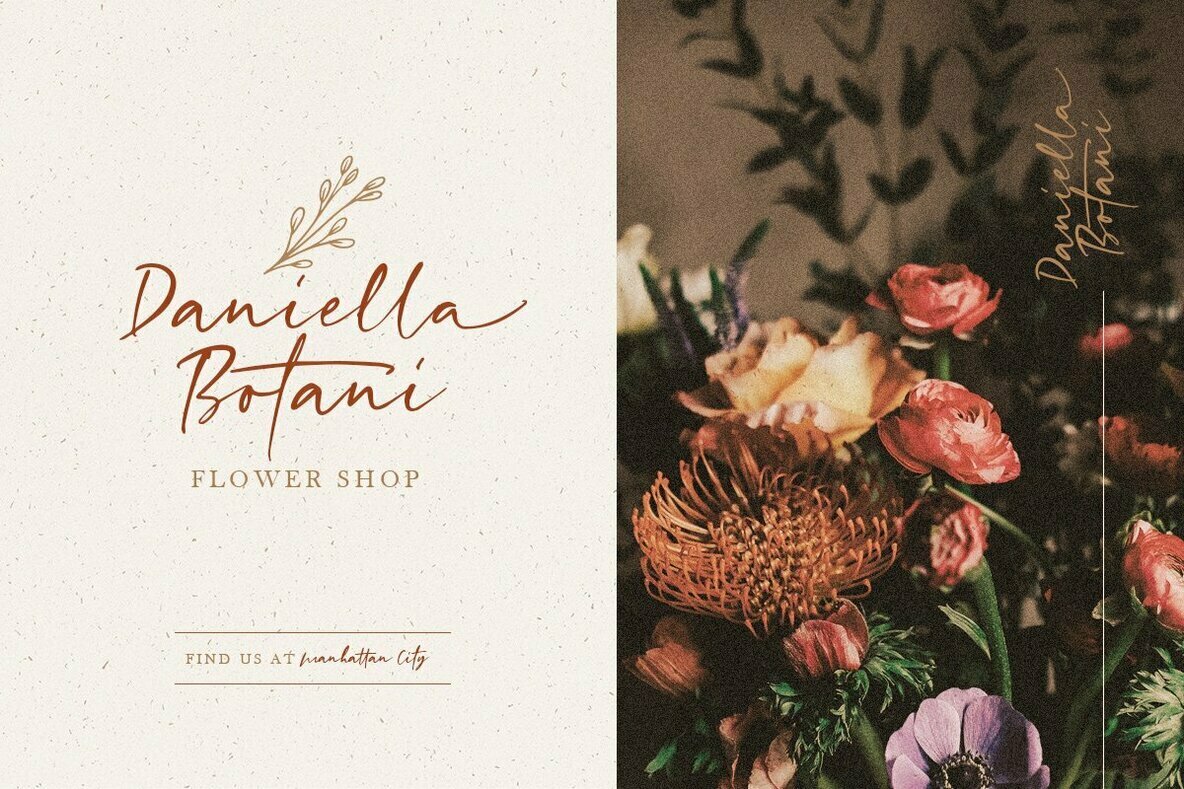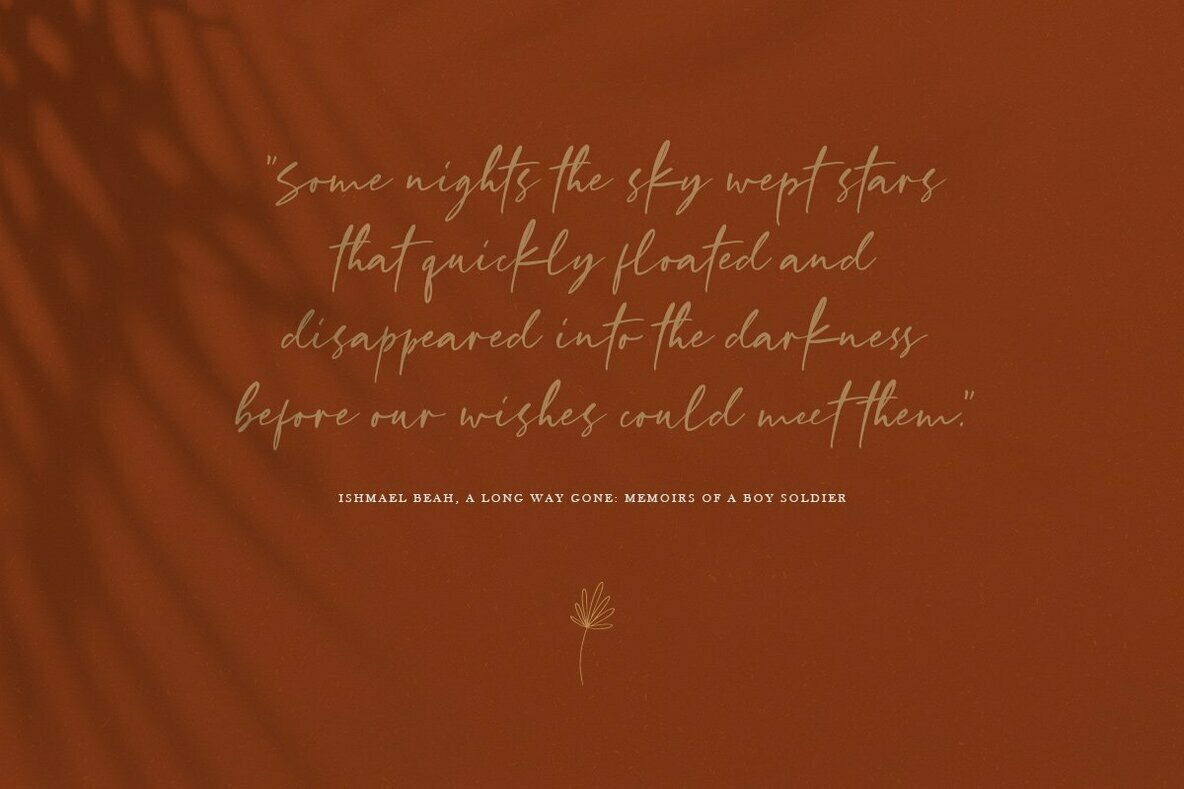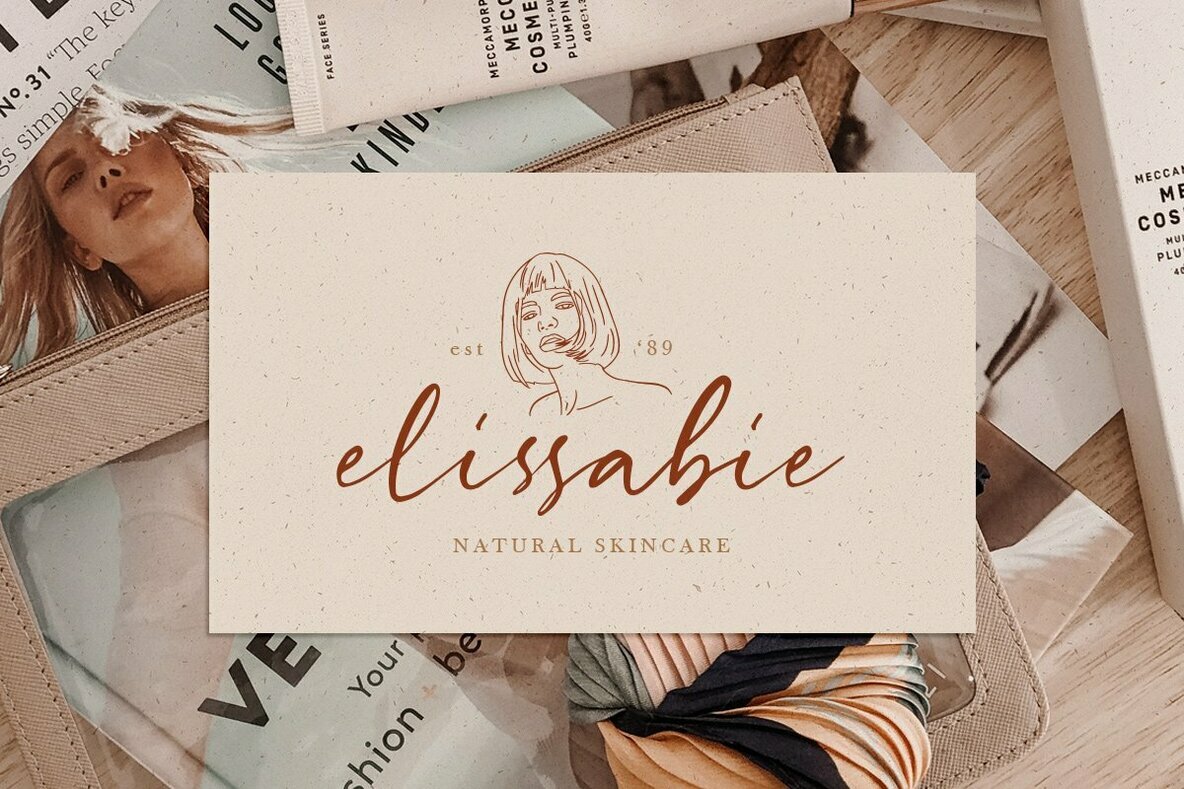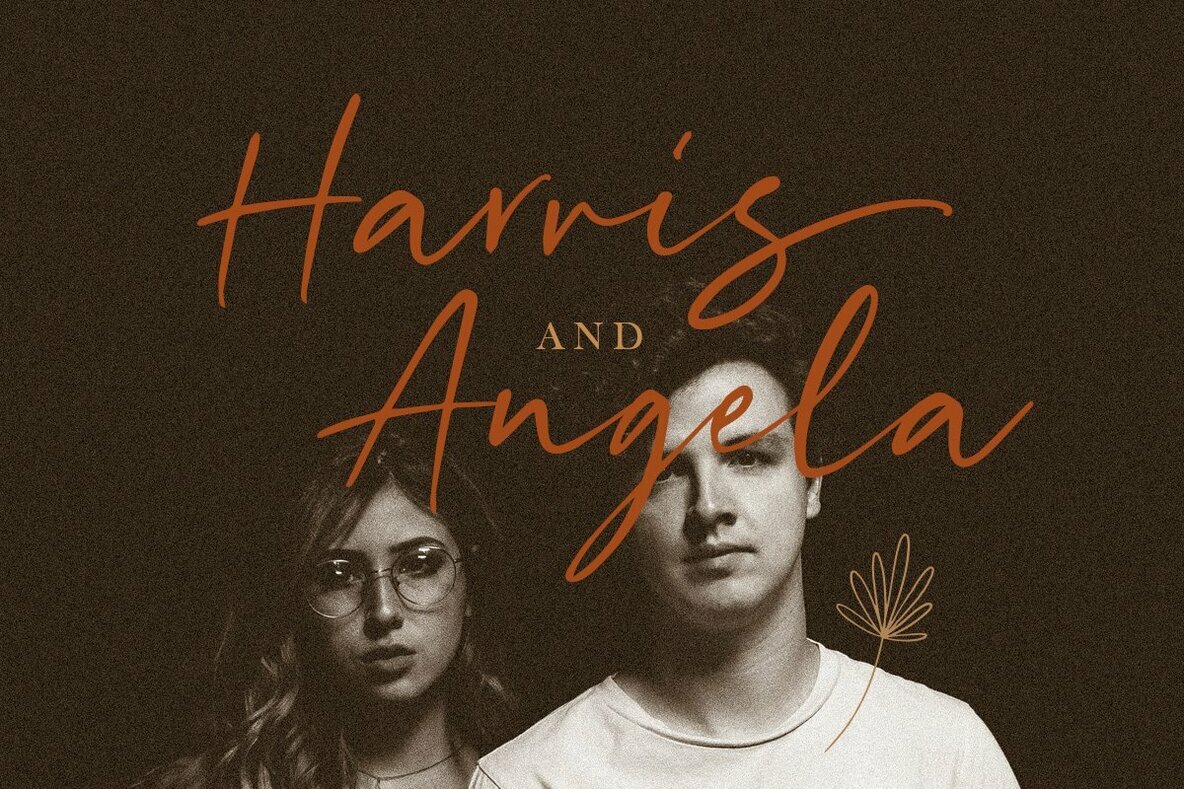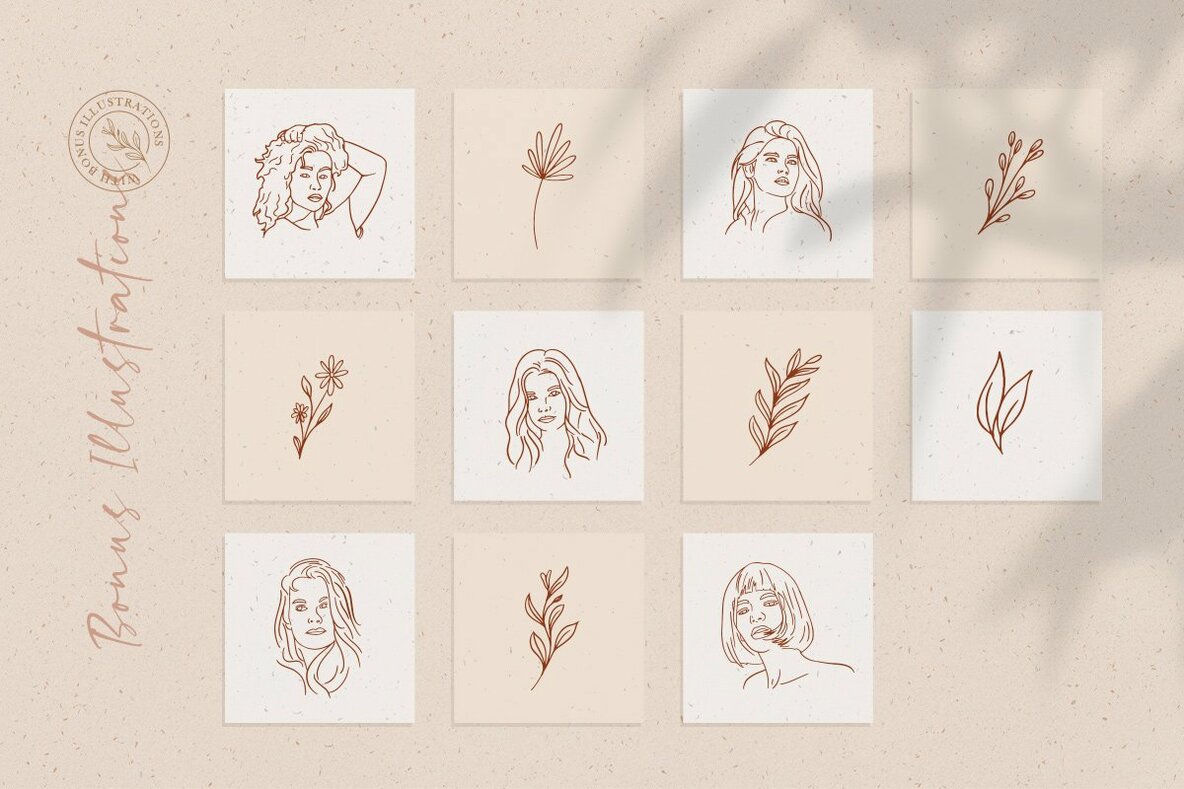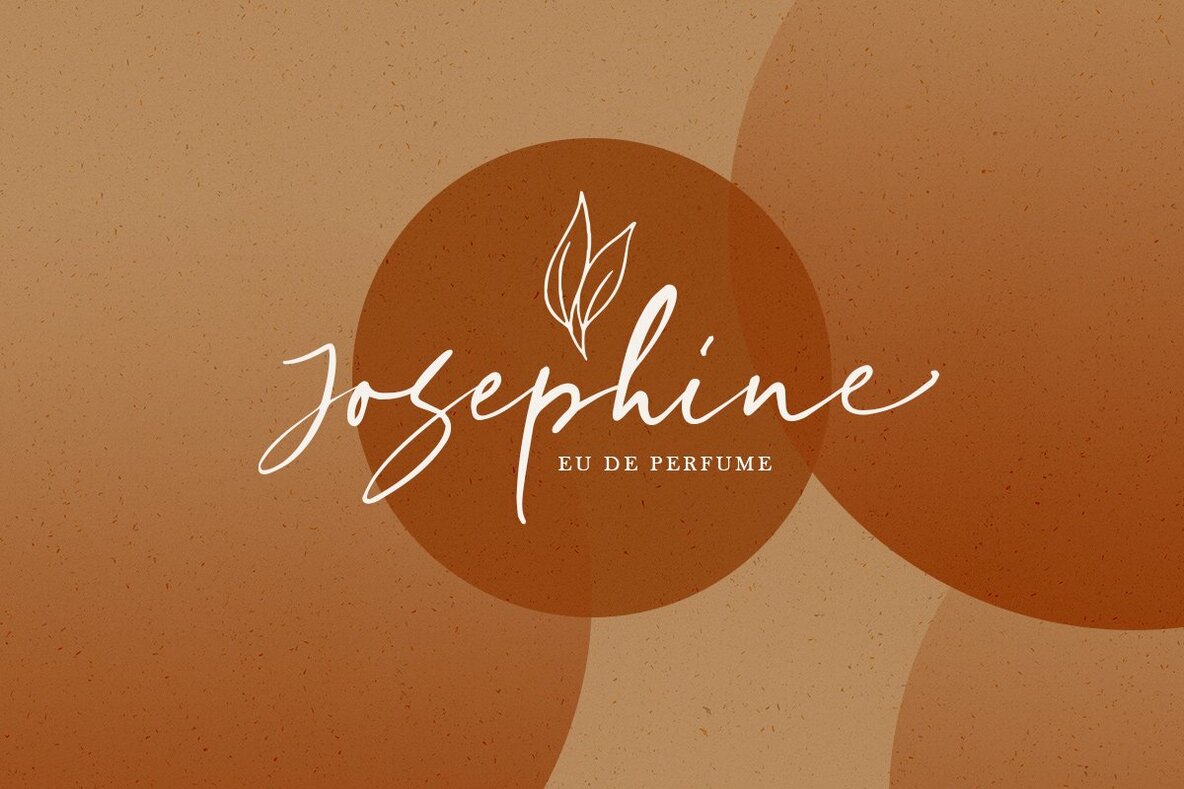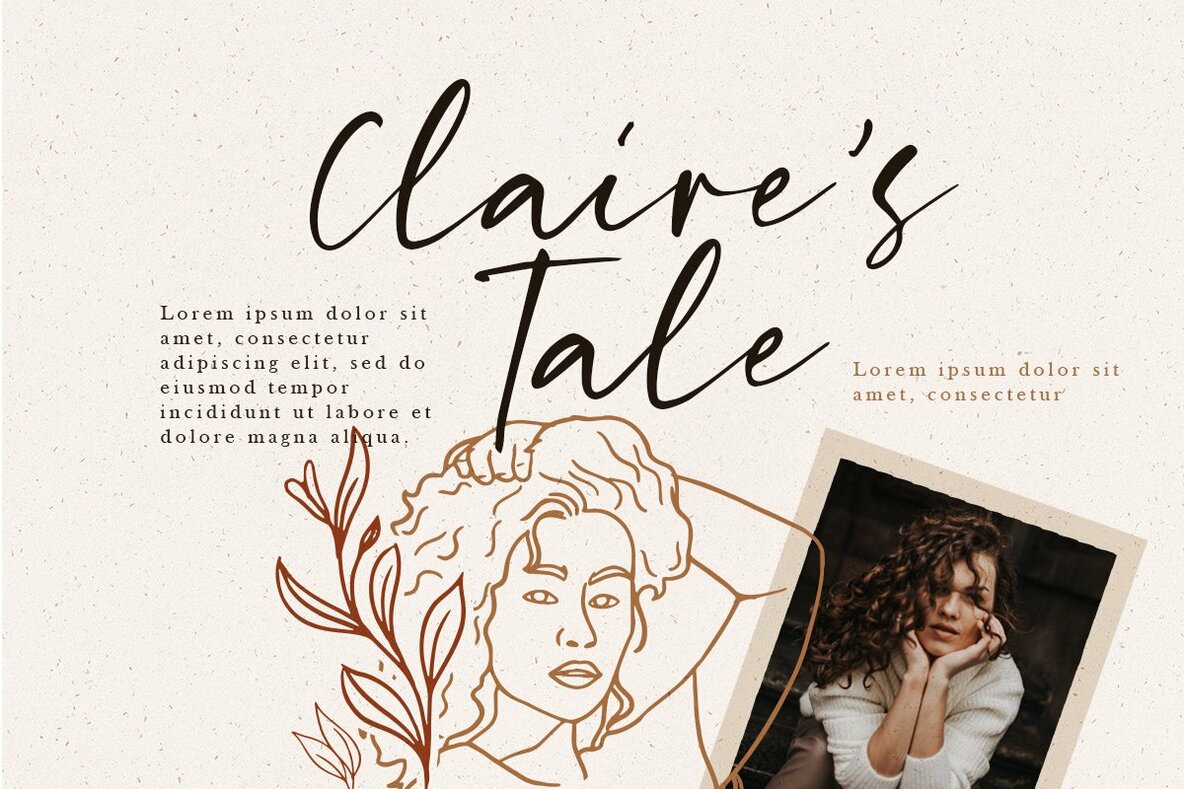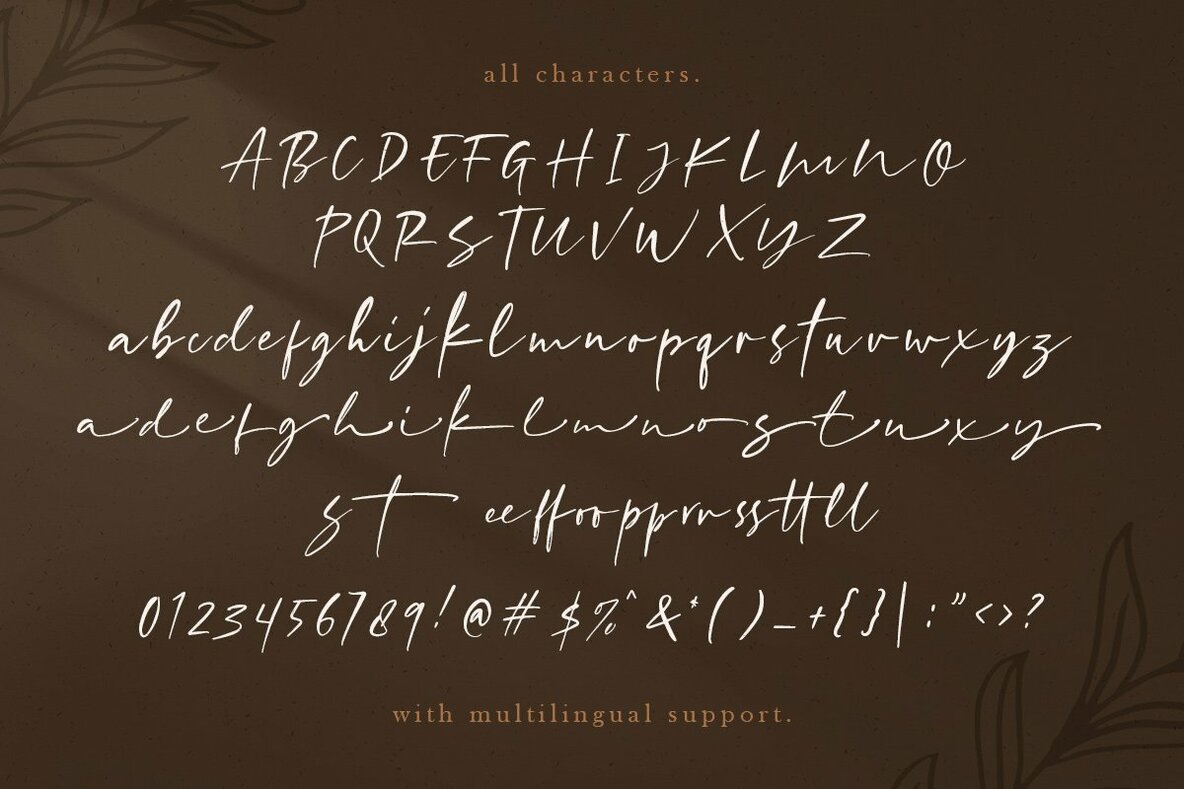
Girly Moods Script Font
Girly Mood, A Cute Handwritten Script with extras. This typeface feminine touch with natural handwritten calligraphy. You will also get bonus illustration in vector format.
This font perfectly made to be applied especially in logo, and the other various formal forms such as invitations, labels, logos, magazines, books, greeting / wedding cards, packaging, fashion, make up, stationery, novels, labels or any type of advertising purpose.